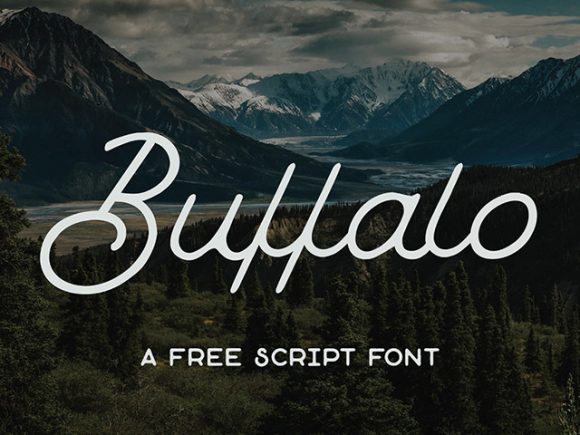
Free Buffalo monoline script font
Featuring the amazing free buffalo monoline script font. This free typeface file was found from the amazing source called Freebies Bug. Easily amaze your audience with this beautiful font and make your graphic designs pop up from the crowd.